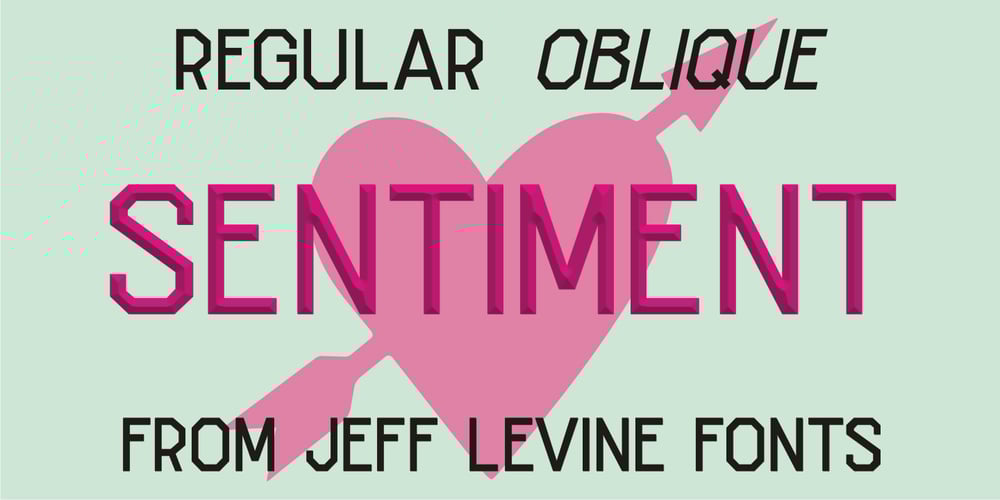
Sentiment JNL Font Family was designed by Jeff Levine and published by Jeff Levine. Sentiment JNL contains 2 styles and family package options. From the 1917 sheet music for “The World Has Been So Mean to Me” comes a wonderfully hand lettered chamfered sans with varying widths and character shapes, now released digitally as Sentiment JNL in both regular and oblique versions. This informal bit of lettering retains the stylish elements of the Art Nouveau period without the extreme eccentricities found in some typographic designs of the period.